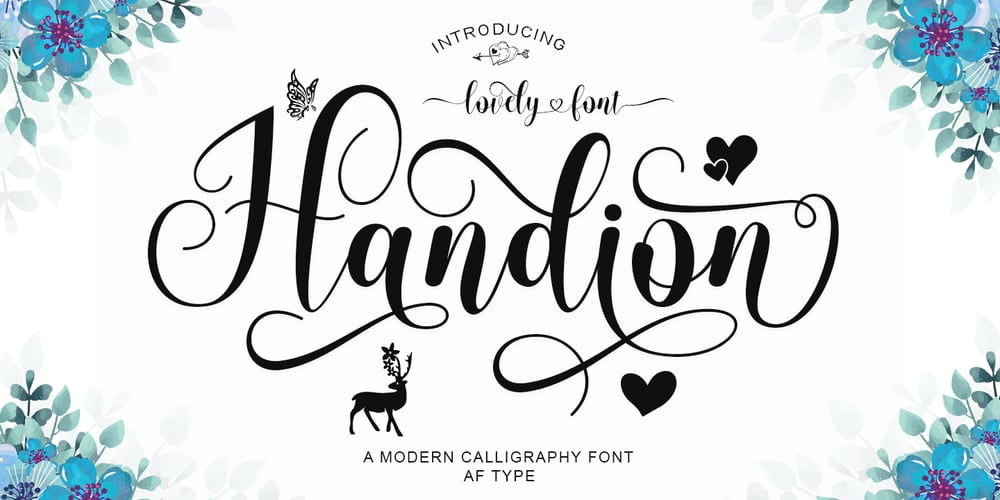
Handion
Handion font
Handion Font Family was designed by Al Qausar Firdaus and published by AF Type. Handion contains 1 styles and family package options. Handion is a modern calligraphy font with today’s handwriting style, this font is perfect for branding, wedding invitations, magazines, mugs, business cards, quotes, posters, and more, you can try it first if you want to buy this font.Handion is equipped with 400 glyphs. and by having many of these glyphs, you will be able to choose letters according to your liking, lots of variations and options for each letter, so you can adjust to your design choices.To use various kinds of glyphs, you need a program that supports OpenType features such as Adobe Photoshop Cs/Adobe Photoshop CC, Adobe Illustrator CS/Adobe Illustrator CC, Adobe Indesign and Corel Draw and many more programs that support OpenType.If you don’t have a program that supports OpenType, you can access all the alternative glyphs using Font Book (Mac) or Character Map (Windows).Thanks and happy designing :-)Thank you for buying!